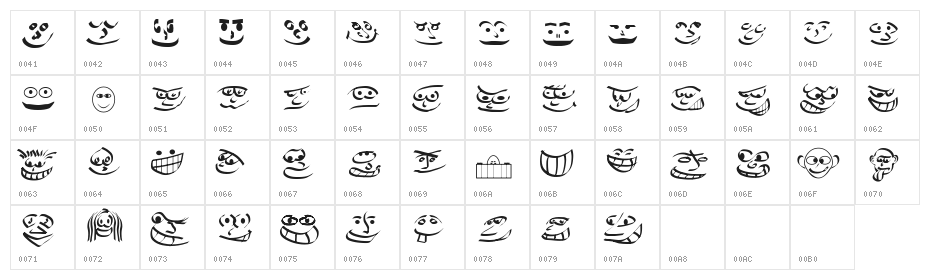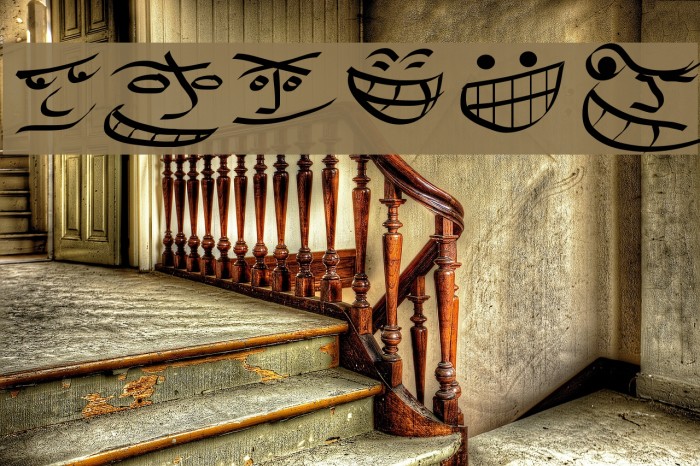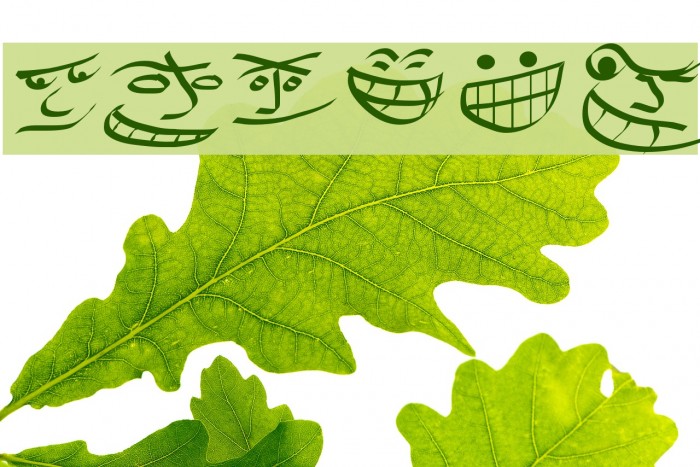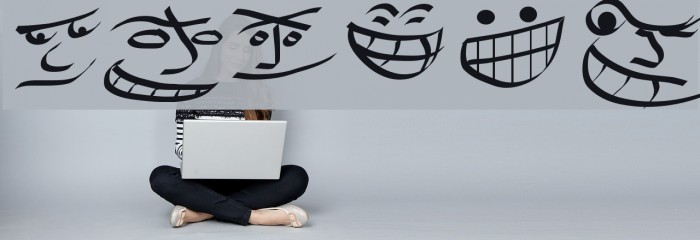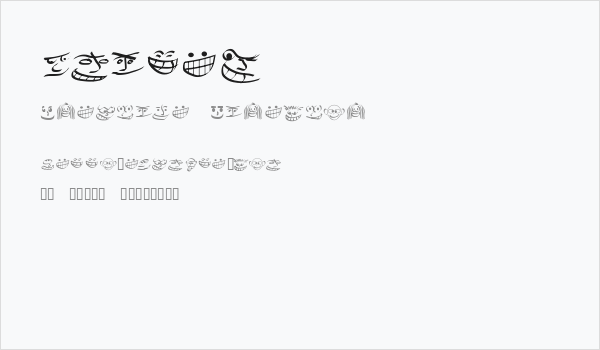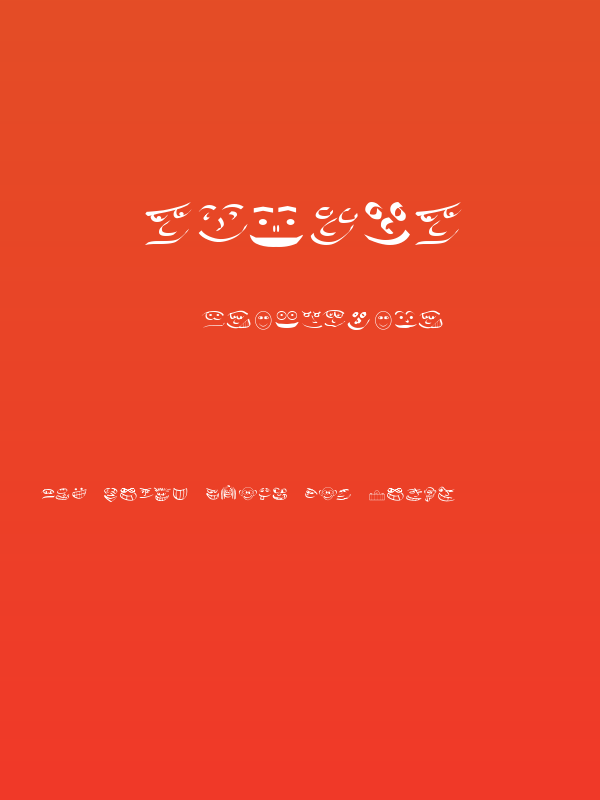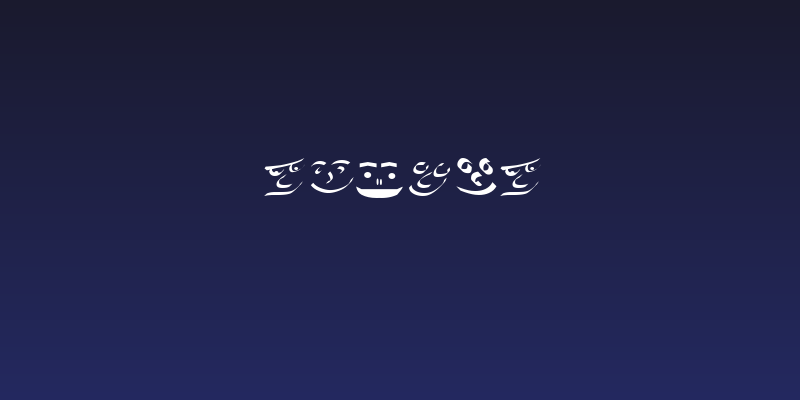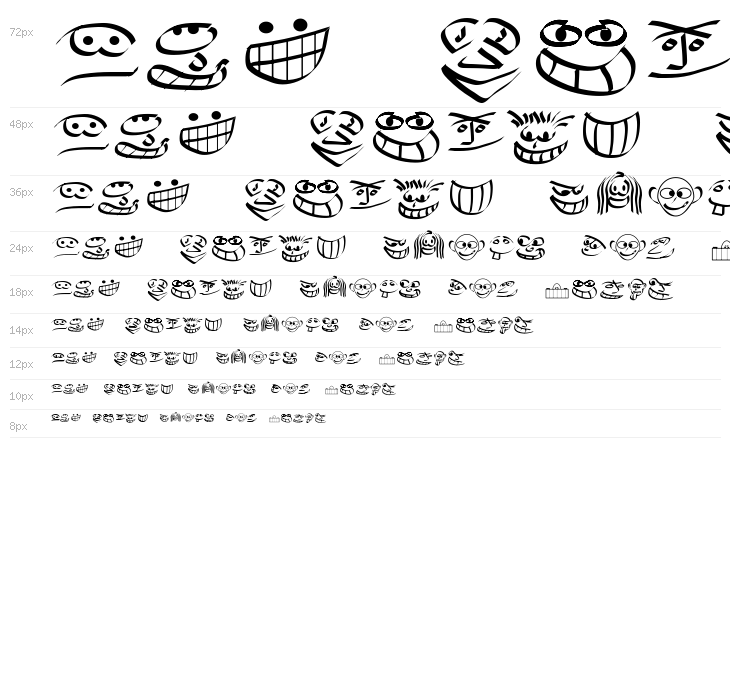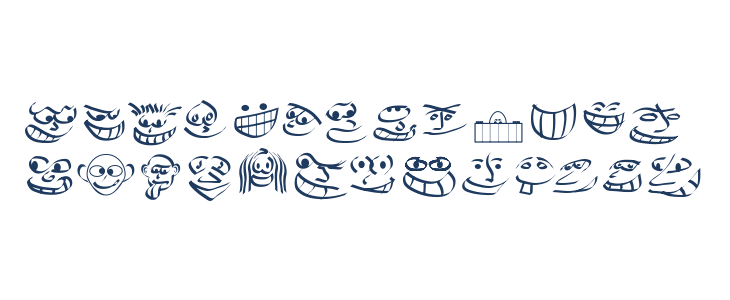
Smiles Font
Smiles Description
A playful and decorative font composed entirely of various smiling and expressive cartoon faces, each character uniquely illustrated with exaggerated features and whimsical expressions, creating a lively and humorous visual effect.
| Overall Style | Playful, Whimsical, Decorative |
| Use Case | Headlines, Logos, Posters, Themed events |
| Proposed Projects | ChildrenΓ’β¬β’s books, party invitations, playful branding, comic strips, greeting cards, educational materials. |